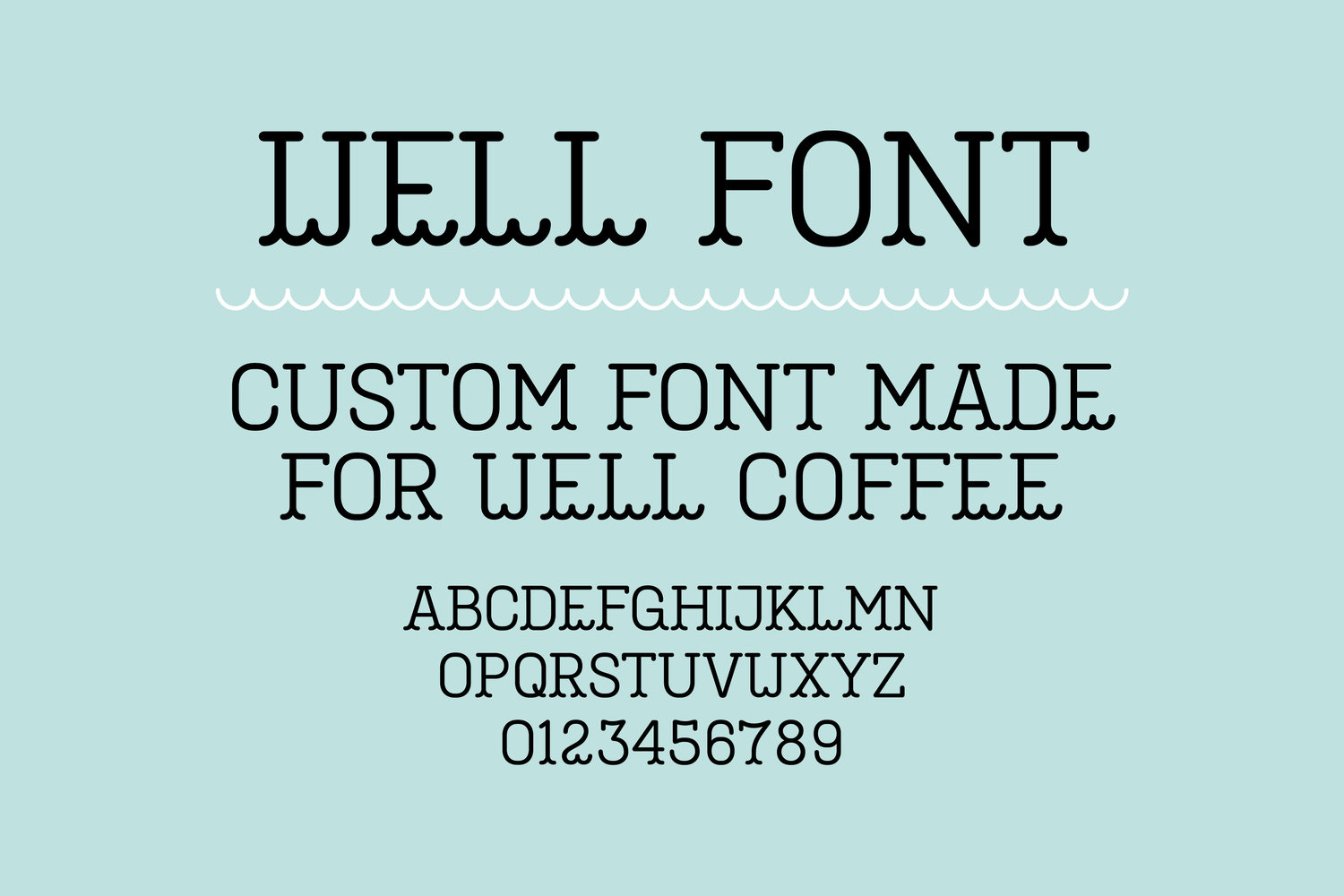
Well Font
Well Font is perfect for wellness center branding, health clinic signage, spa and retreat materials, mindfulness app interfaces, natural healing practices, holistic therapy logos, medical wellness facilities, healthy lifestyle publications, therapeutic service advertising, and balanced living campaigns.
What makes Well Font so exciting is its remarkable ability to embody perfect balance and holistic wellness through letterforms that seem to radiate health, vitality, and inner harmony with every character. This healing typeface captures the essence of comprehensive well-being and therapeutic balance with characters that communicate both strength and serenity, professional expertise and compassionate care. The font's harmonious design elements perfectly balance clinical credibility with nurturing warmth, creating an indispensable tool that communicates wellness authority, healing potential, and holistic care, making it essential for healthcare providers and wellness professionals who understand that true health encompasses mind, body, and spirit.
Well Font comes in multiple font families including Regular, Bold, Light, Italic, Bold Italic, Healing, Balanced, and Therapeutic variations. Each family member maintains the core wellness characteristics while offering different healing intensity levels and stylistic approaches to suit various healthcare design requirements.
The therapeutic precision in Well Font makes it particularly effective for healthcare facilities and wellness centers where conveying both professional competence and compassionate care is crucial for building patient trust and encouraging healing participation. Its balanced letterforms work exceptionally well across all healthcare applications, from clinical signage to wellness program materials, maintaining consistent healing appeal and professional credibility.
Healthcare marketing professionals recognize how Well Font transforms ordinary medical communications into healing invitations that combine clinical expertise with compassionate care. The typeface's wellness character set includes special health symbols, therapeutic elements, and healing indicators that enhance the overall wellness atmosphere of any healthcare-focused project.
For creative professionals serving medical practices, wellness centers, and holistic health providers, Well Font serves as the perfect foundation for establishing memorable visual identities that capture the essential qualities of healing expertise, compassionate care, and holistic wellness that define successful healthcare brands committed to treating the whole person, not just symptoms.